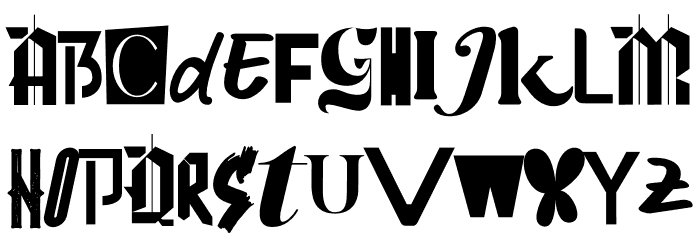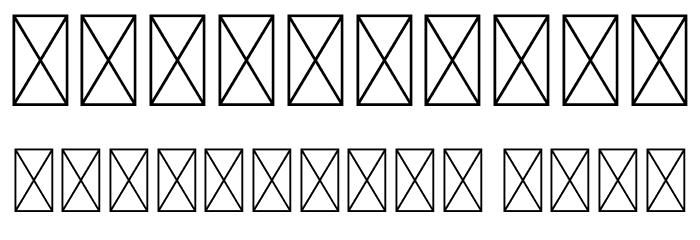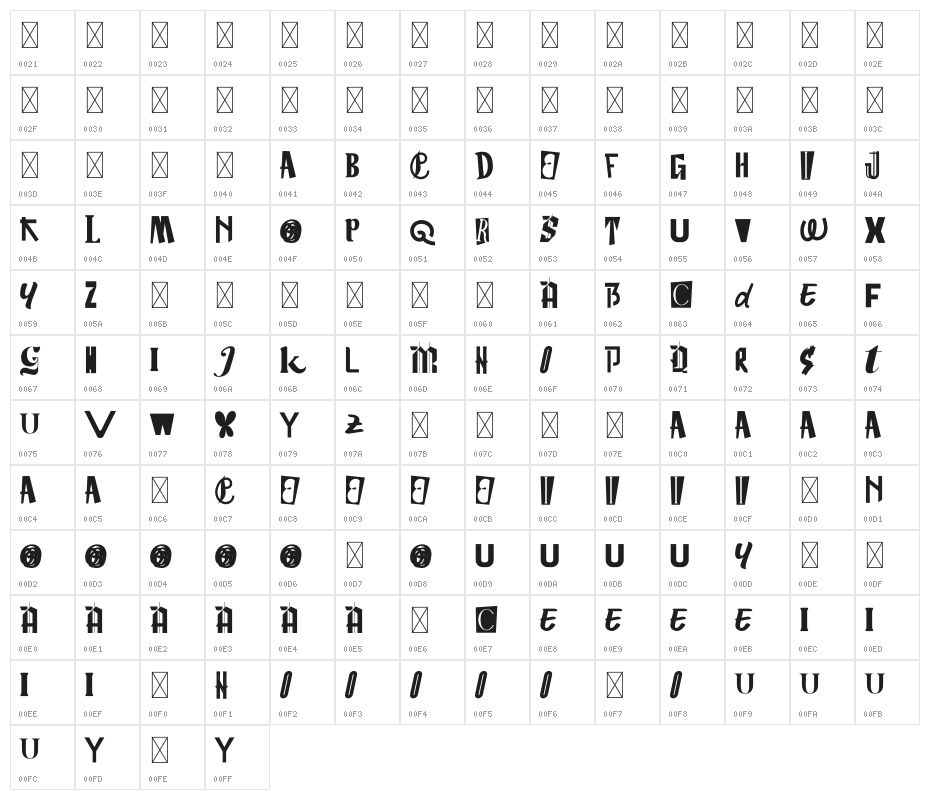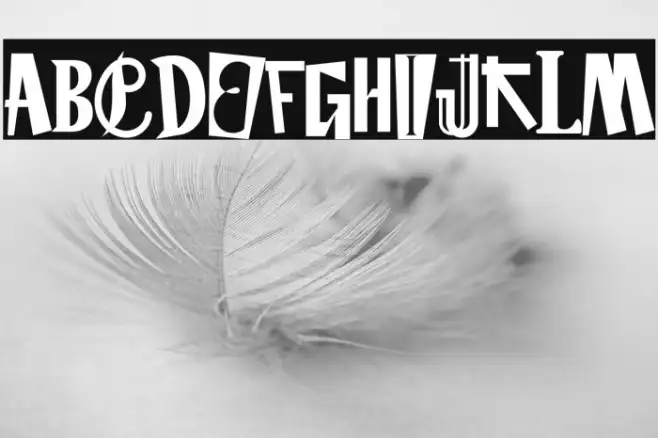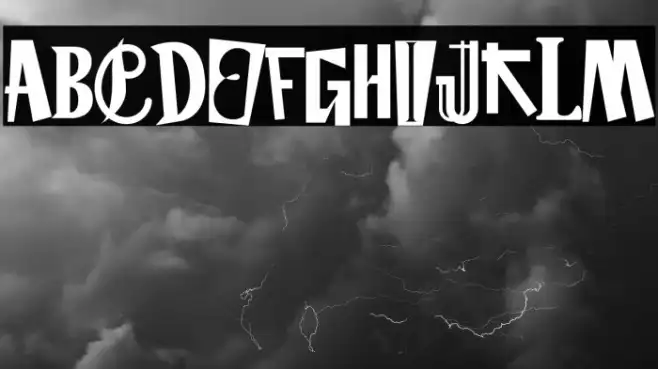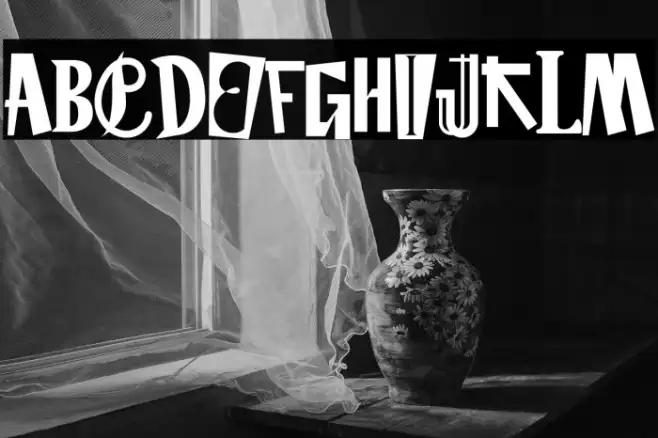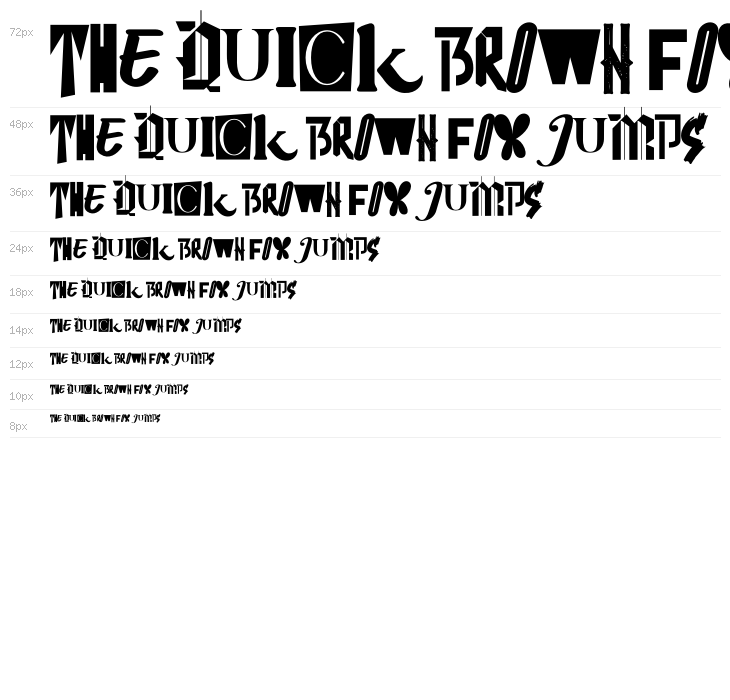
Music Sound Font
This font is a highly decorative and eclectic typeface that combines various artistic elements in each character. The uppercase letters feature bold, dramatic shapes with unique embellishments, such as musical notes and abstract forms, giving each letter a distinct personality. The lowercase letters continue this theme, offering a mix of curves and sharp angles that create a dynamic visual experience. The font lacks numerical characters and special symbols, emphasizing its focus on artistic expression rather than practicality. Its overall design is striking and unconventional, making it suitable for projects that require a bold and artistic statement.
A decorative and eclectic font with artistic elements and unique character designs.
- Font: Music Sound
- Proposed Projects: Ideal for music-themed posters, album covers, artistic branding, and creative event invitations.
- Use Case: Logos, Headlines, Artistic projects